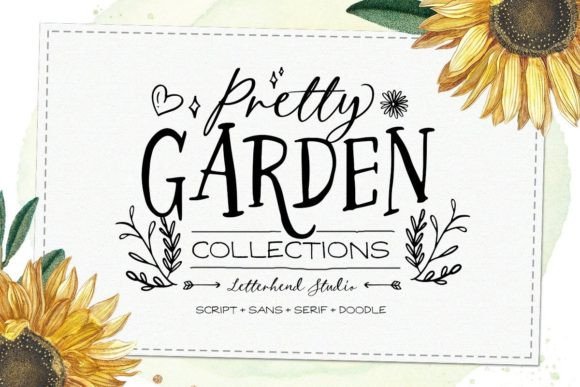
Pretty Garden Font
Pretty Garden is a spectacular font trio (sans, script, and serif) with a cute bonus dingbat font. Lovely and a bit quirky, this font will brighten up each of your designs. Add it confidently to your projects, and you will love the results.